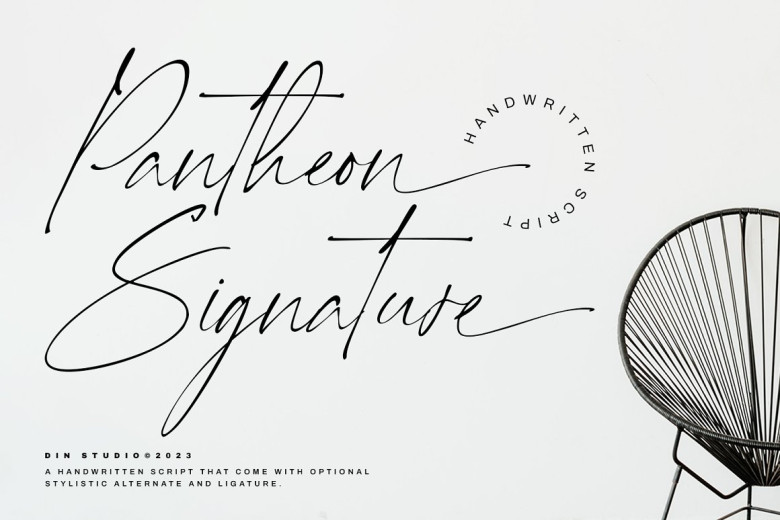
Pantheon Signature Font
Pantheon Signature is a handwriting style script font made in elegant, personal, detailed handwriting designs. The combination of the amazing attractiveness and beauty emphasizes the modern designs of this font. Pantheon Signature’s letters are interconnected and the letters’ details show sharp, curvy scratches on the edges.
It is most applicable for designs in elegant, professional, romantic nuances. Furthermore, you can use it for either big text sizes or the text contents and also enjoy the available features here.
Pantheon Signature Script Font